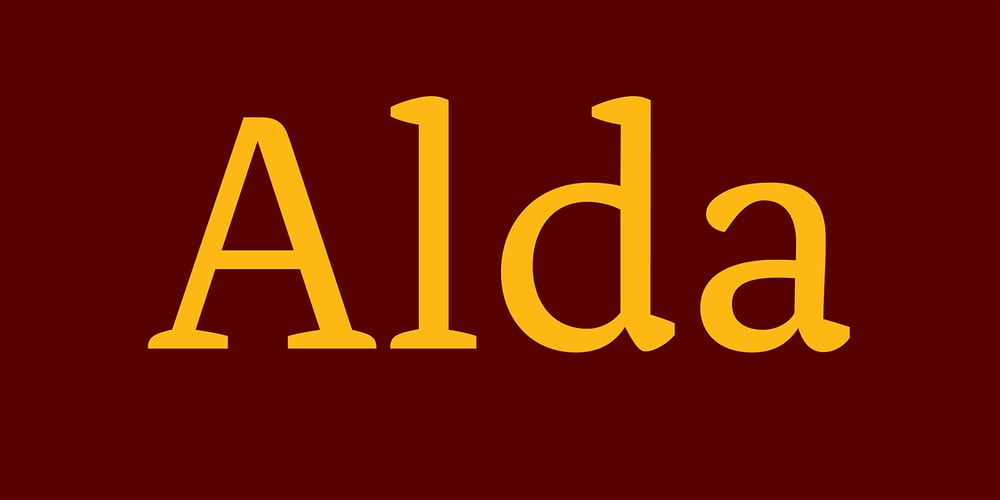
Alda
Alda font
Alda Font Family was designed by Berton Hasebe and published by Emigre. Alda contains 6 styles and family package options. The original idea for Alda came from exploring an alternative approach to generating different typeface weights by adapting the characteristics of physical objects. I was interested to find out how far this could be pushed before the letters became a parody of what they referenced. Initially I took this treatment very literally, with the boldest weight expressing the tension of bent steel, and the lightest being as spineless as a rubber band. This allowed me to infuse each weight with unique characteristics, where the bold is robust and angular, and the light is delicate and soft.